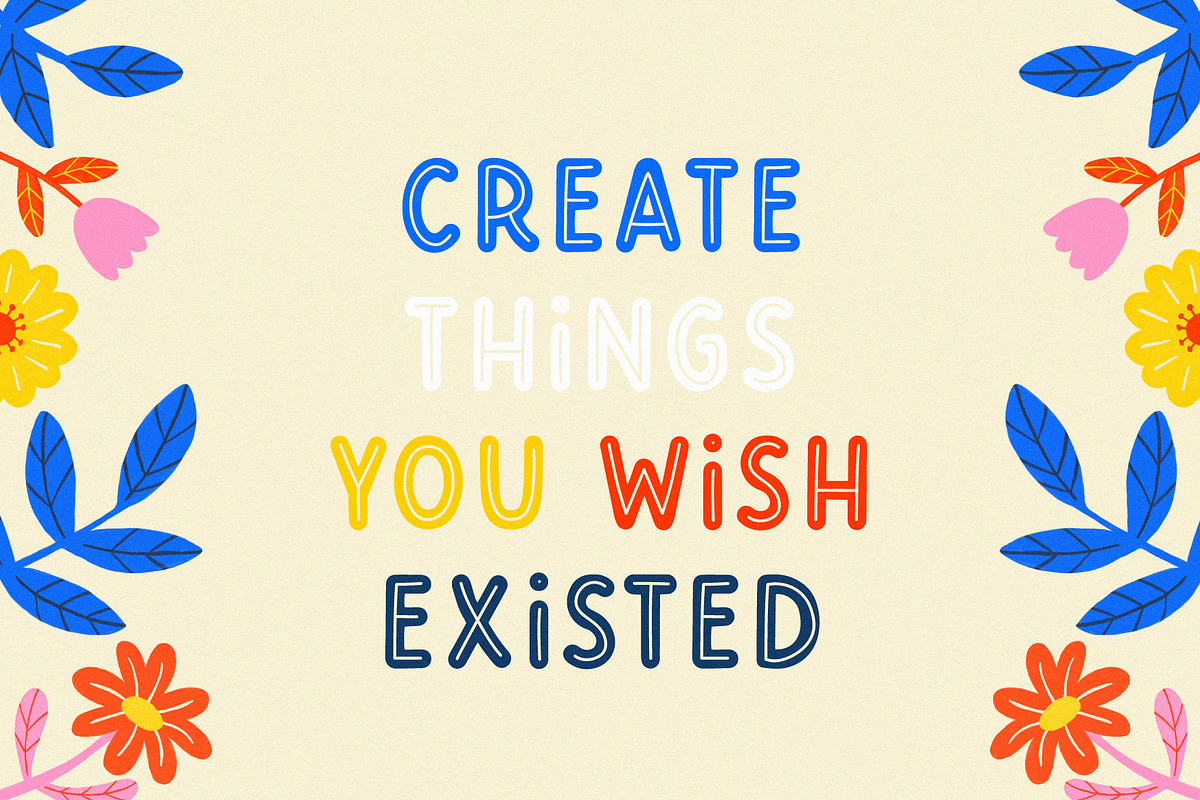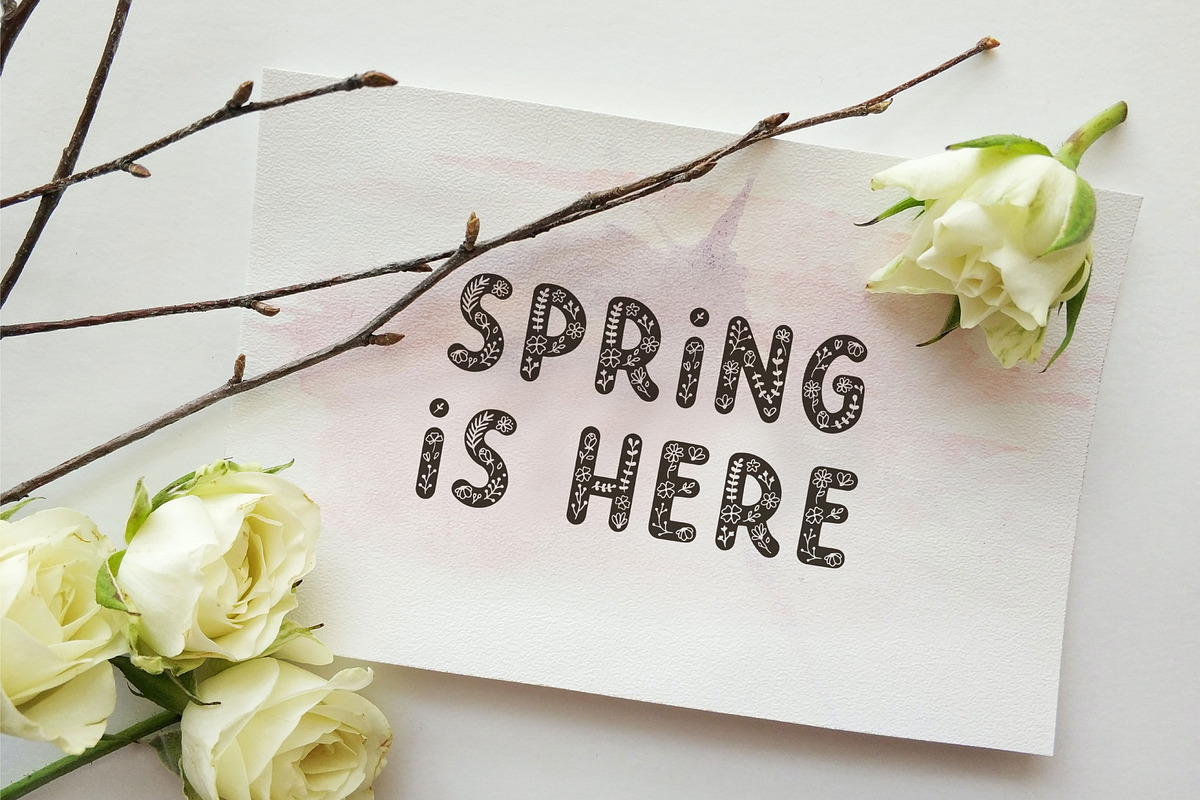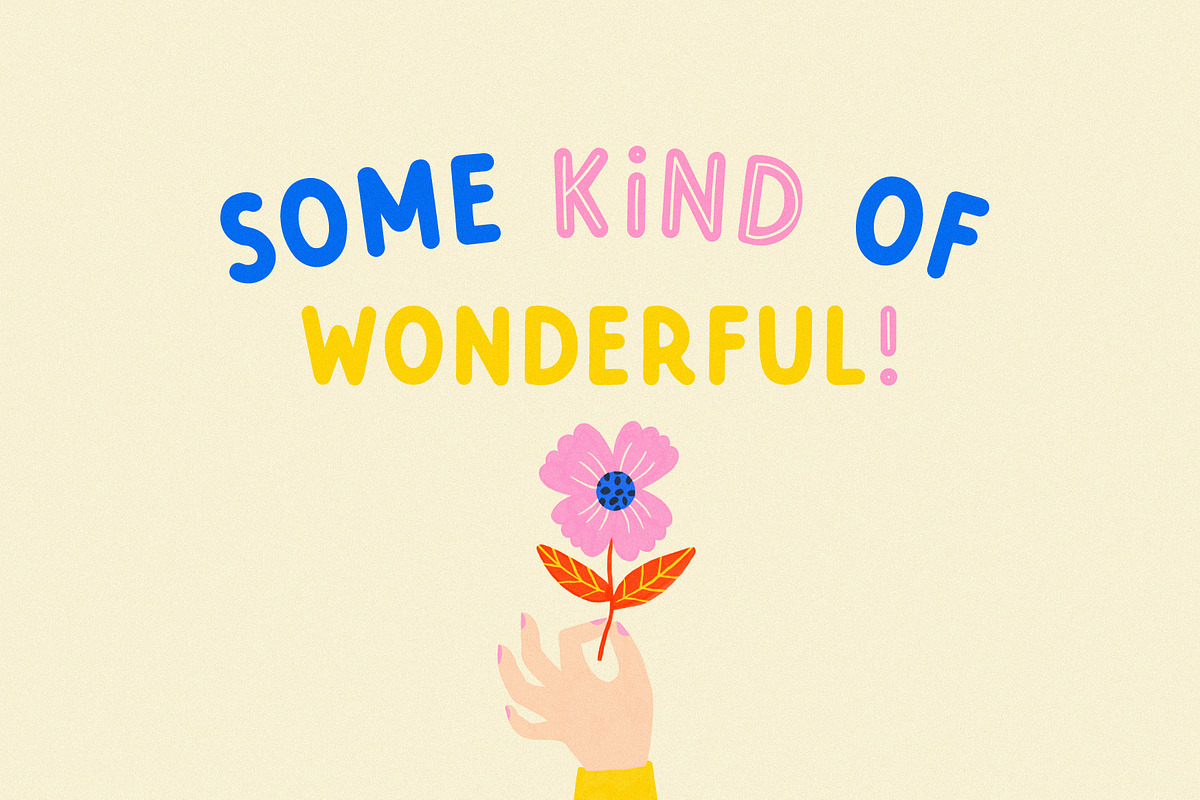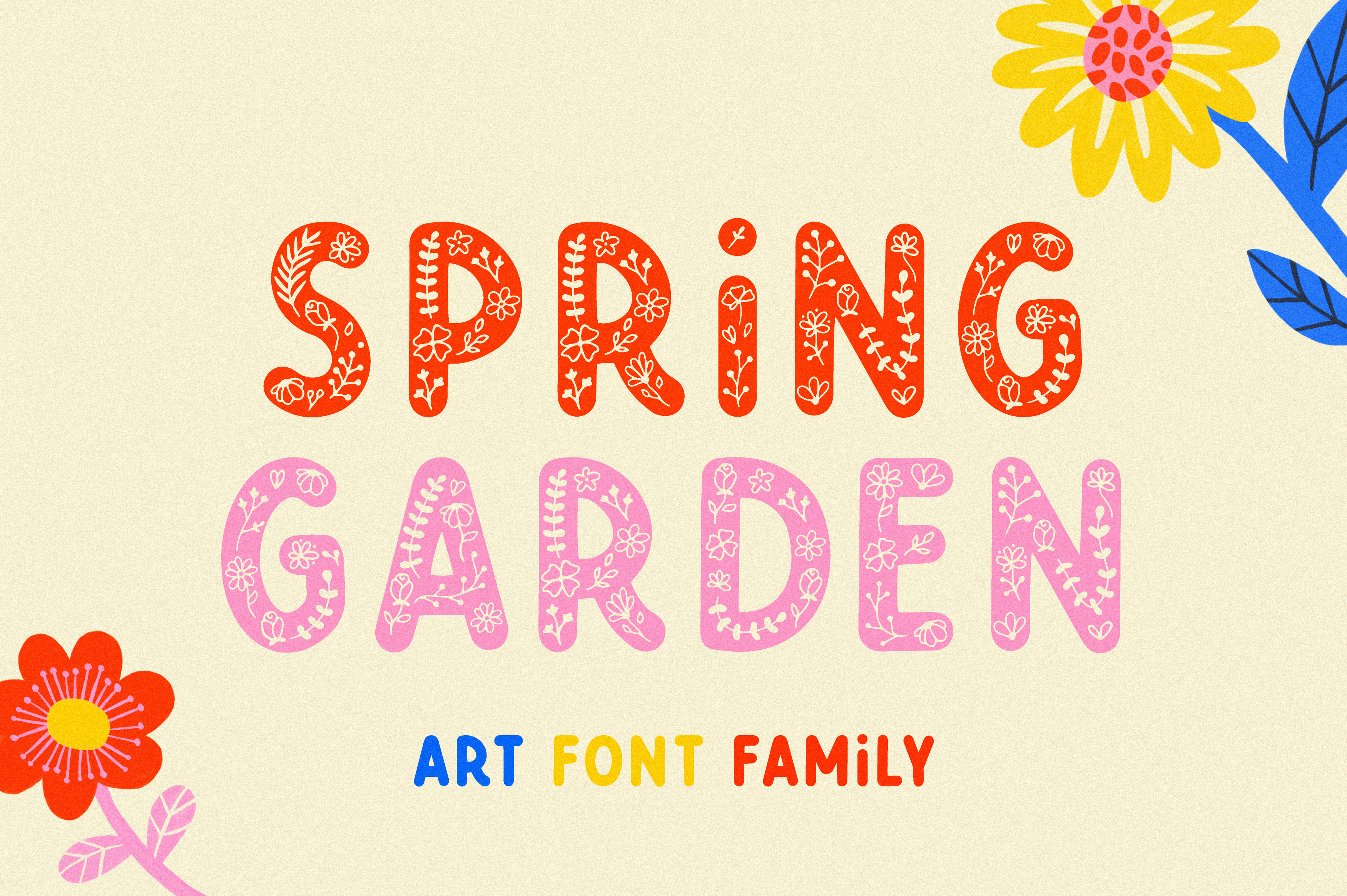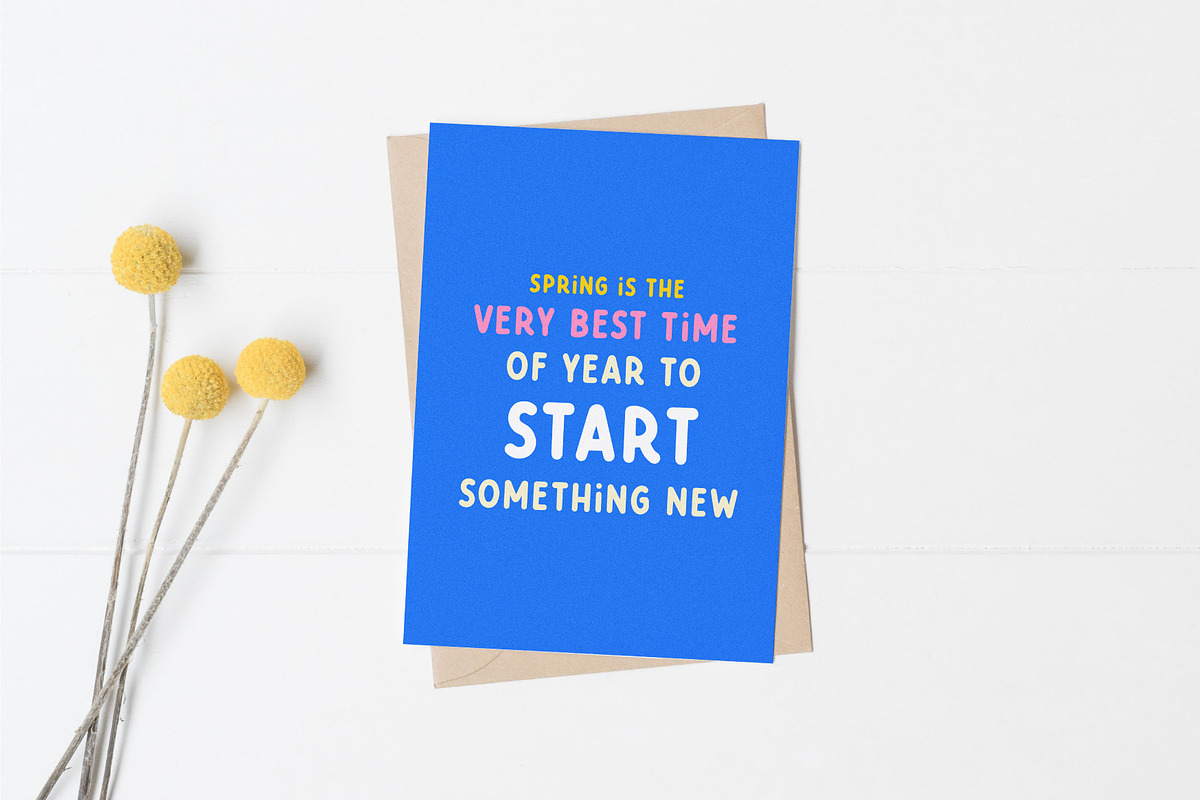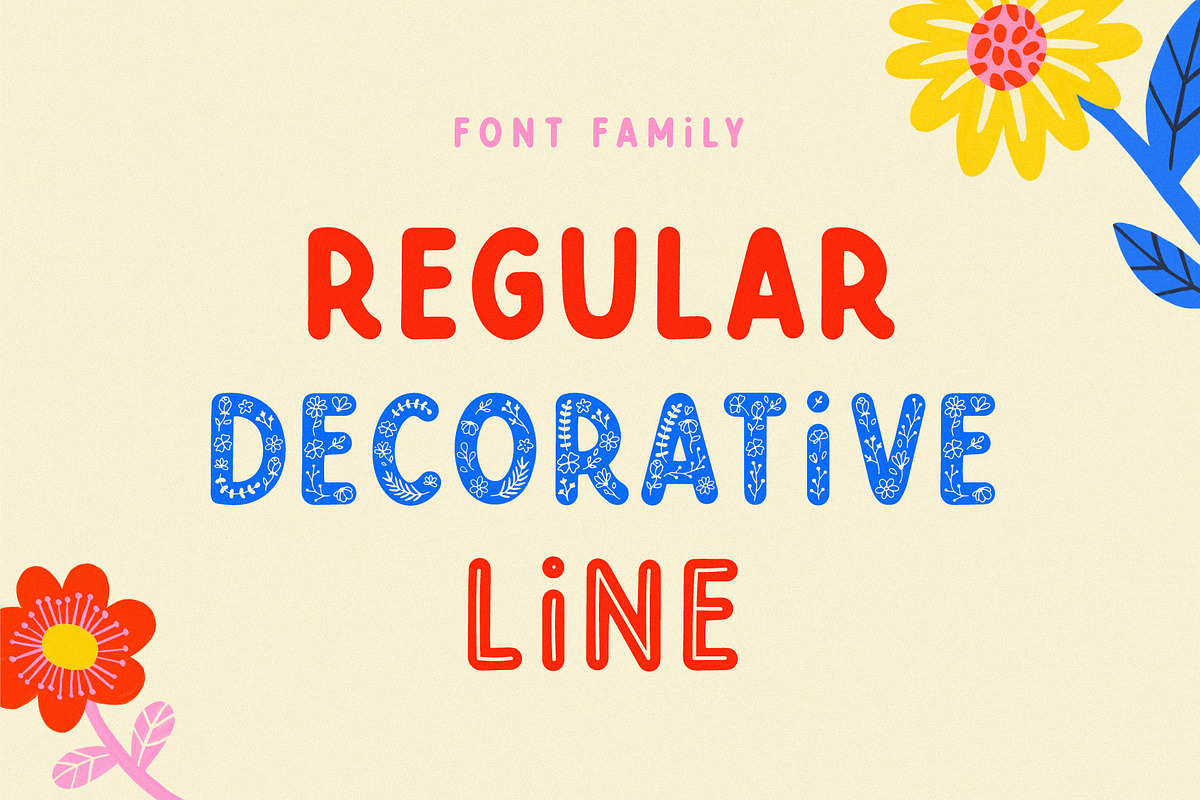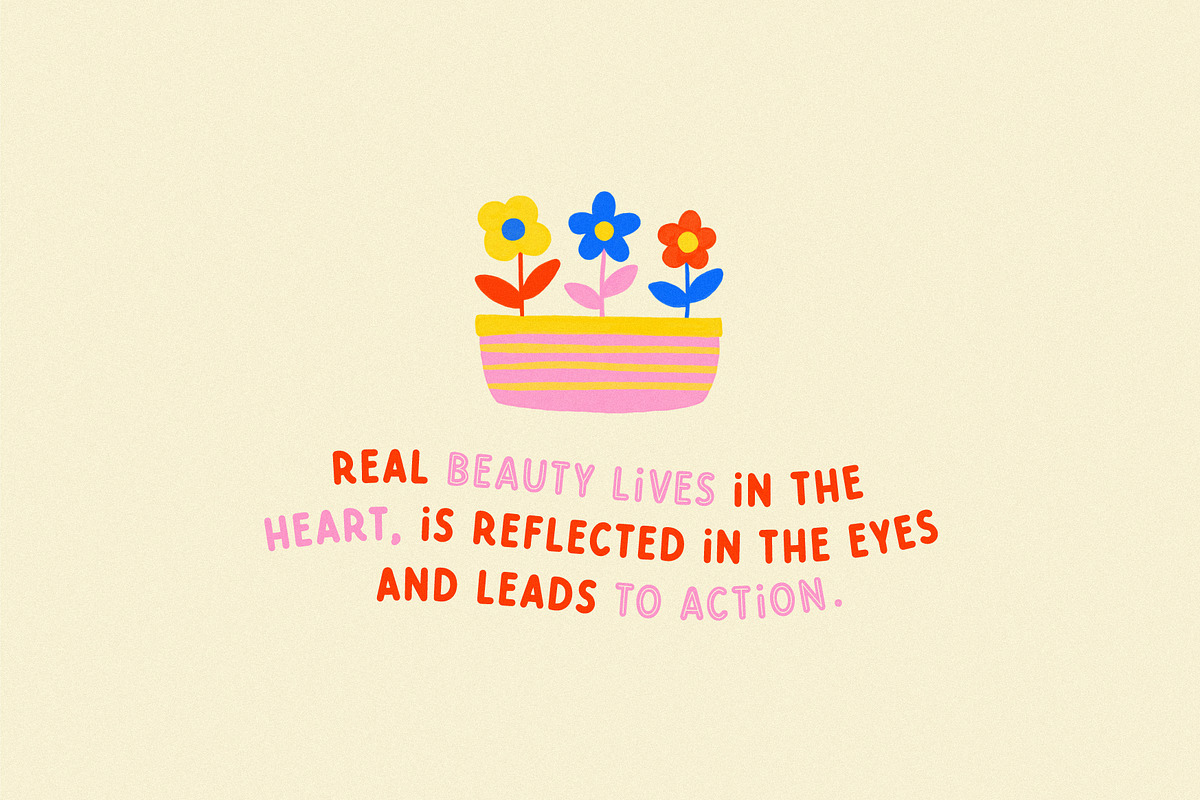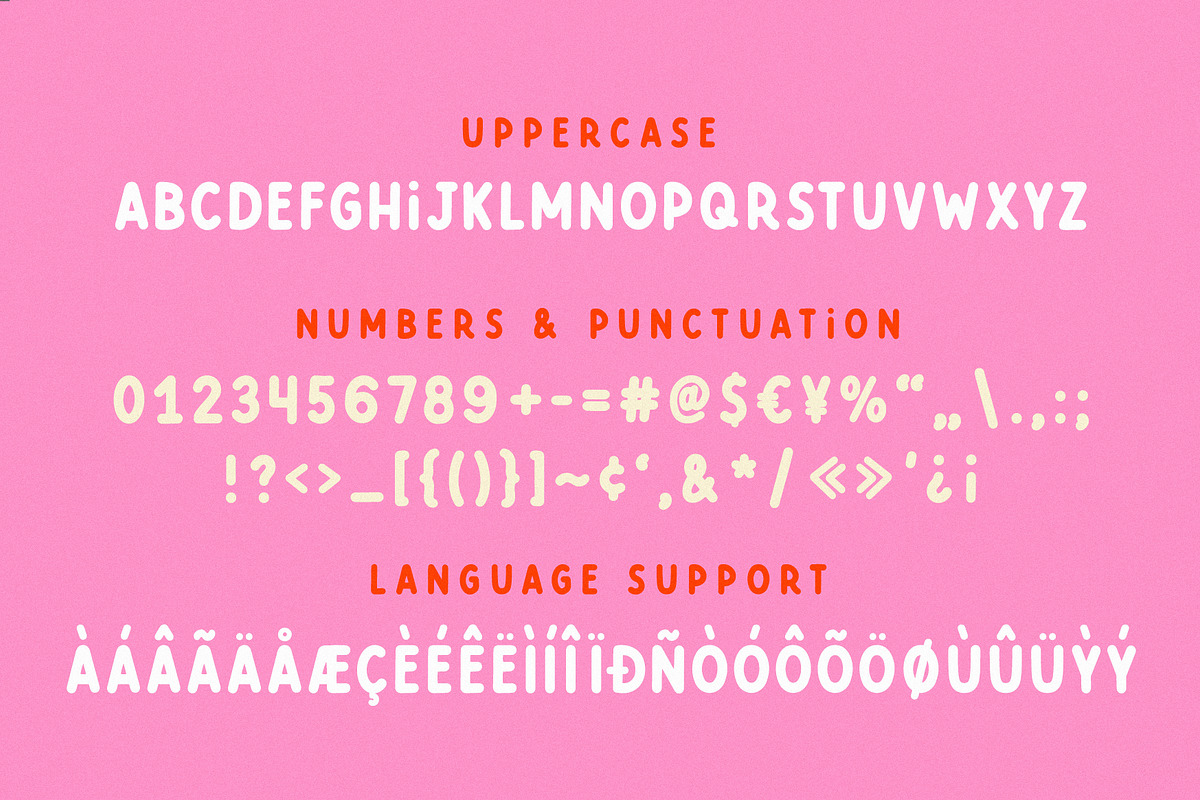
Spring Garden | Font family
Use for logos, quotes, invitations, greeting cards, journals, posters, clothing and more. This font will make your design looks great!